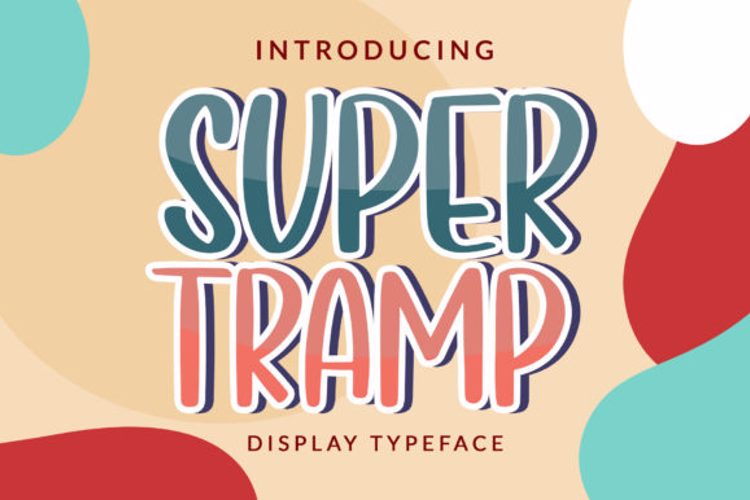
Super Tramp Font
Super Tramp is a cool and casual display font. It is PUA encoded which means you can access all glyphs and swashes with ease!
Add it confidently to your favorite creations and let yourself be amazed by the outcome generated.